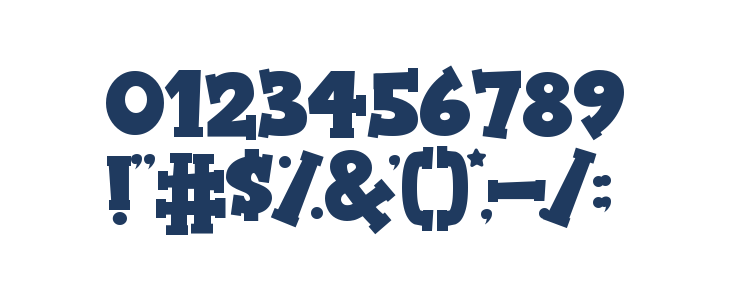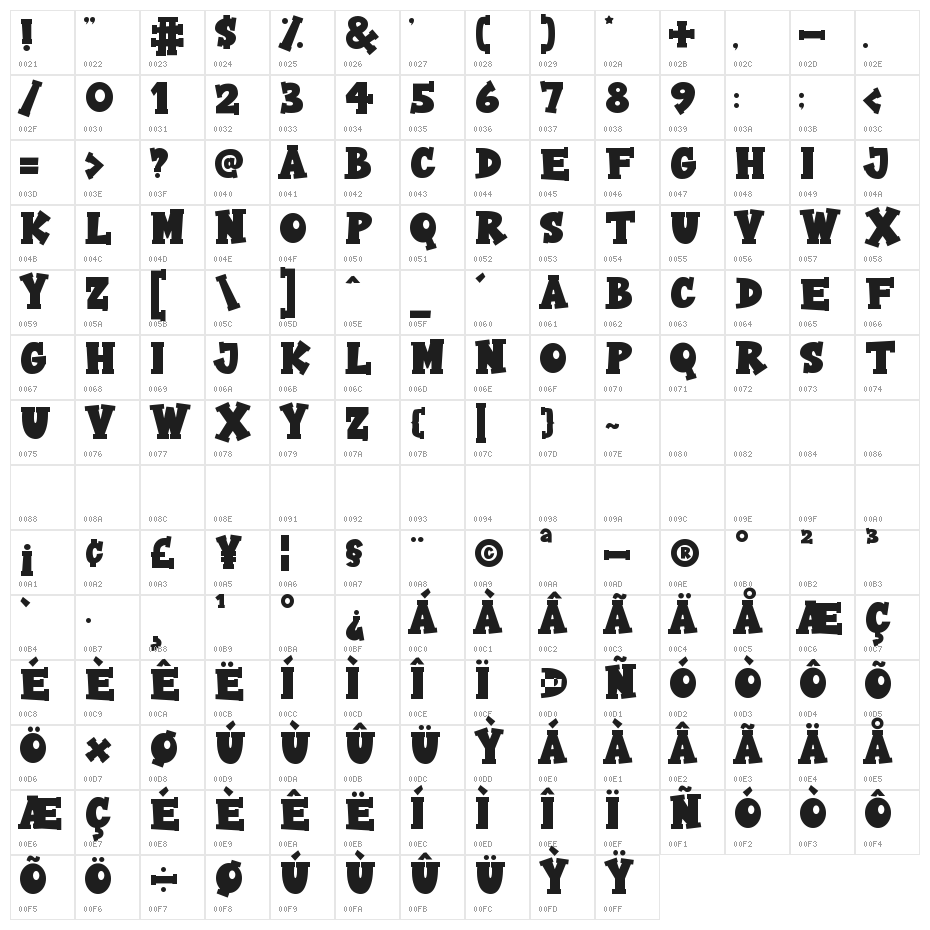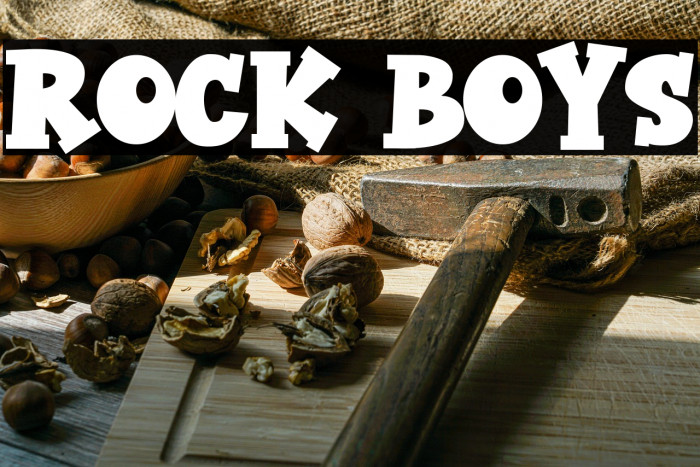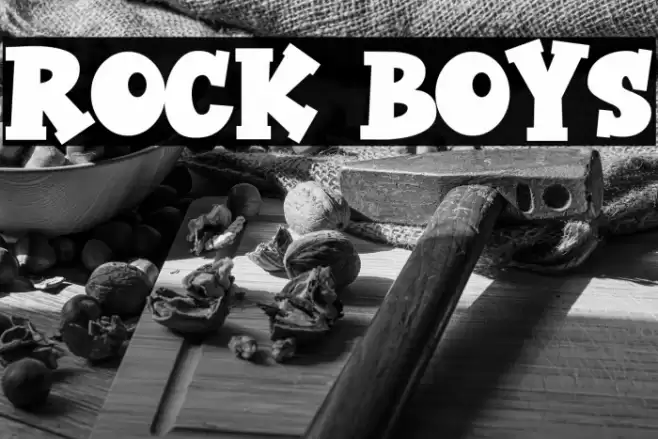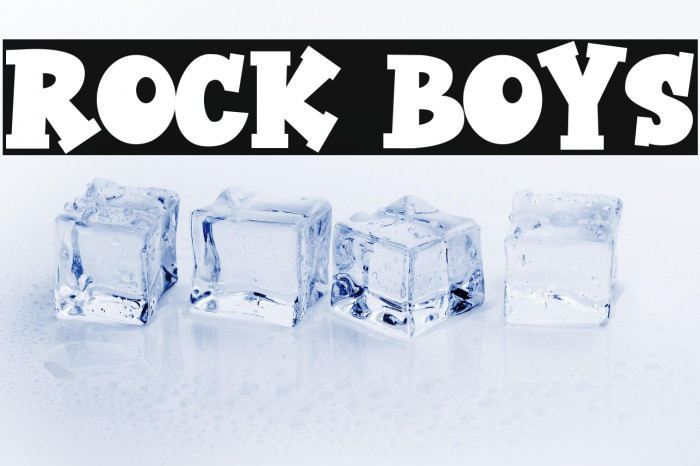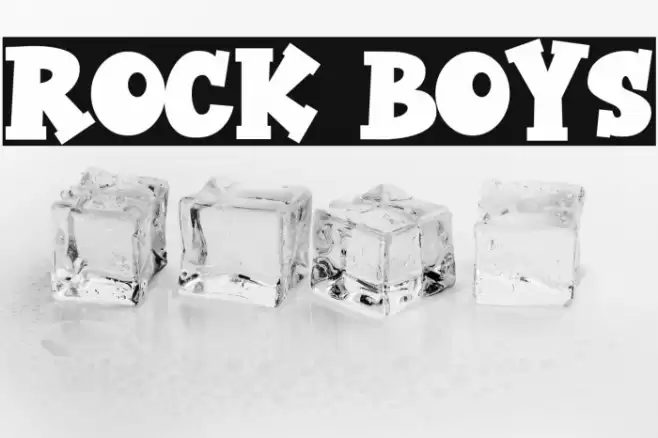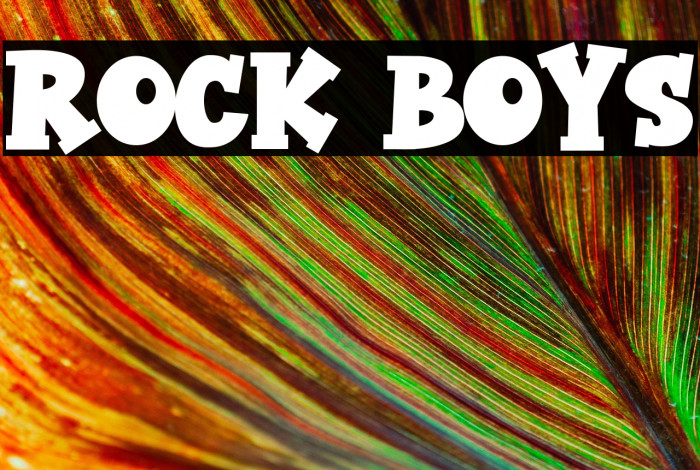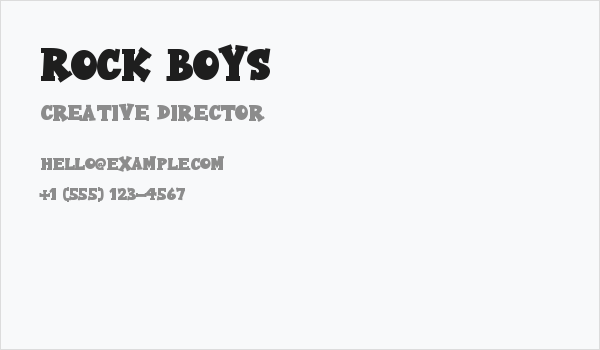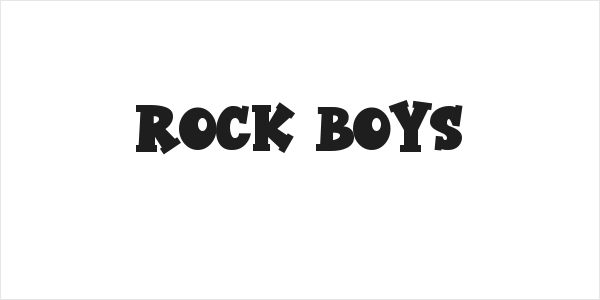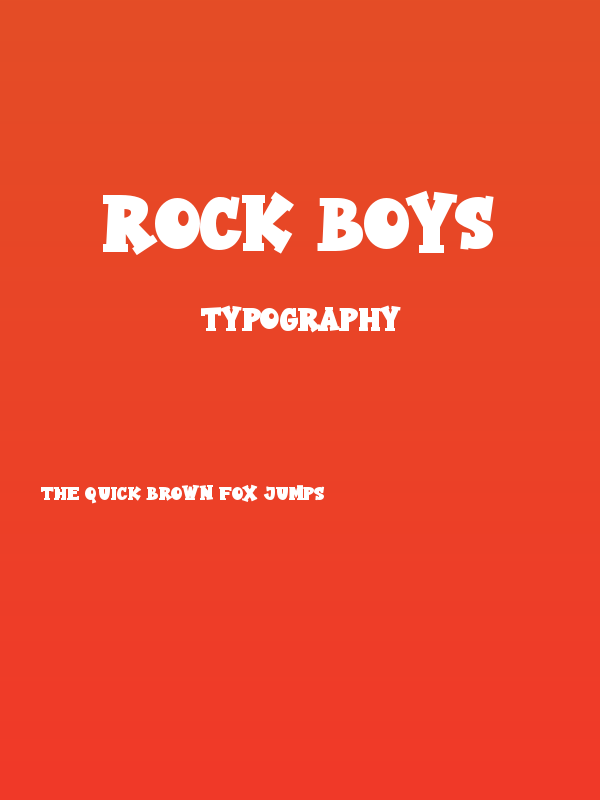
Rock Boys Font
Rock Boys Description
This bold and playful font features thick, exaggerated strokes with a slightly uneven baseline, giving it a lively and energetic appearance. The characters are robust and heavily stylized, with a cartoonish flair that makes them stand out. The uppercase and lowercase letters maintain a consistent style, with rounded edges and a sense of movement. The numbers and special characters follow the same design principles, ensuring a cohesive look across all elements. This font is ideal for projects that require a fun and dynamic visual impact.
| Overall Style | Playful, Cartoonish |
| Proposed Projects | Perfect for children's books, comic strips, playful branding, and event posters. |